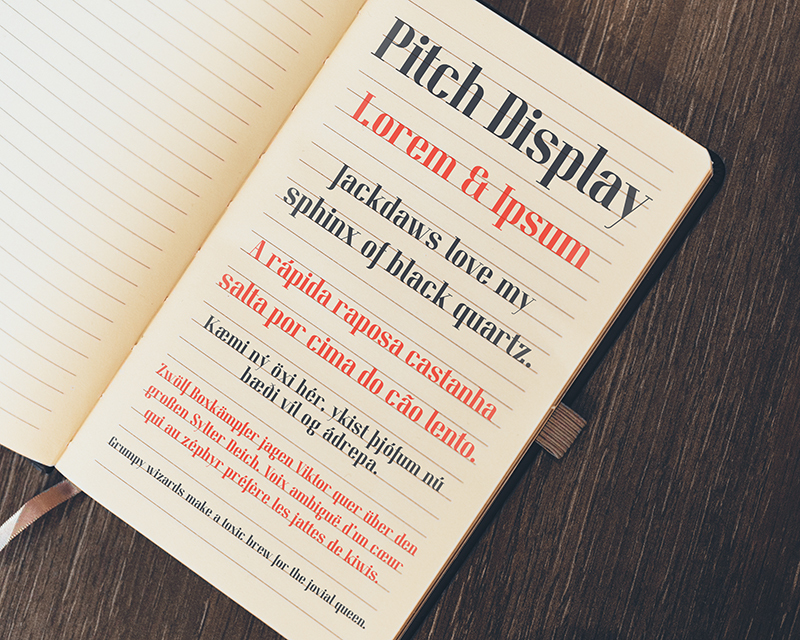
Pitch Display
Pitch Display is a striking slab serif font, designed by the talented Kate Wiliwinska. Its condensed width lends a bold, unapologetic presence, making it an ideal choice for attention-grabbing headlines, titling, and branding applications. The robust, geometric letterforms convey a sense of strength and stability, while the subtle details, such as the slightly rounded corners, soften the overall aesthetic, creating a compelling balance of modern and classic sensibilities.
This font's versatility shines through its ability to command attention in a variety of design contexts, from editorial layouts and packaging to signage and digital interfaces. Its clean, legible forms ensure optimal readability, making Pitch Display a versatile tool for designers seeking to create impactful, memorable typographic compositions.